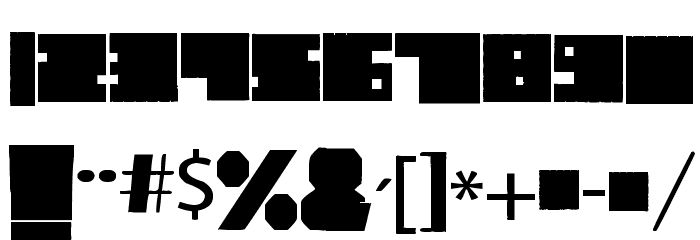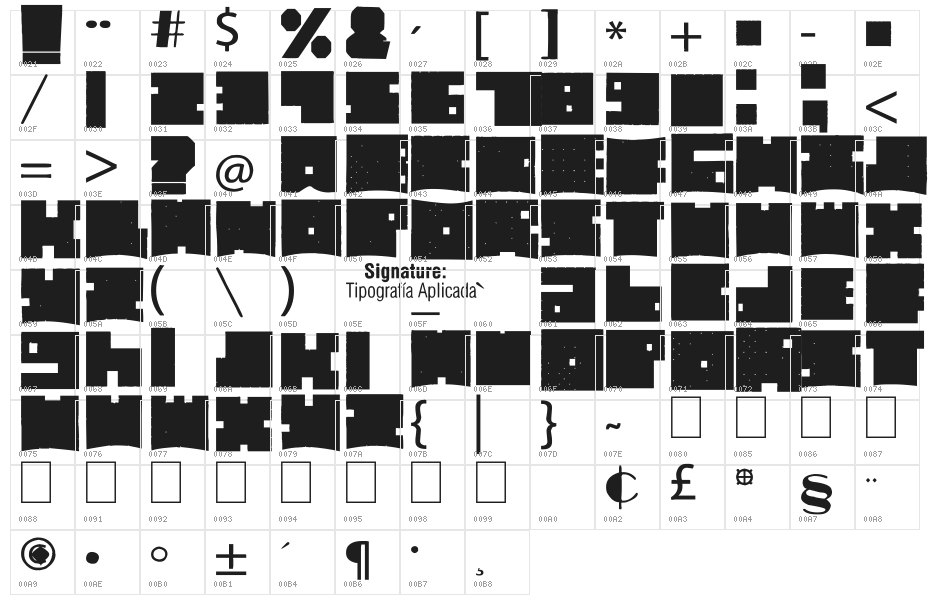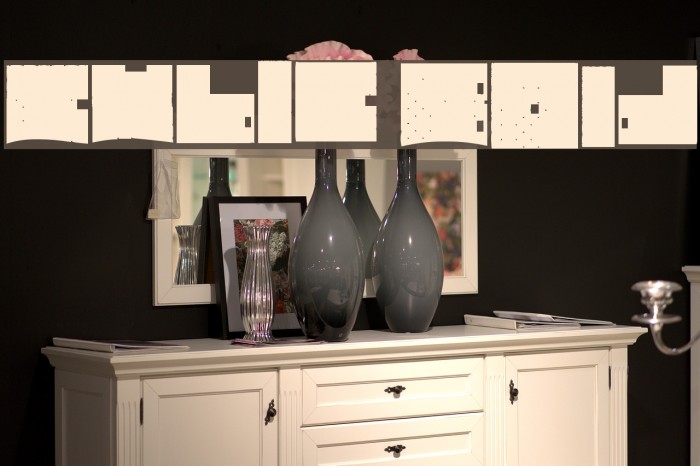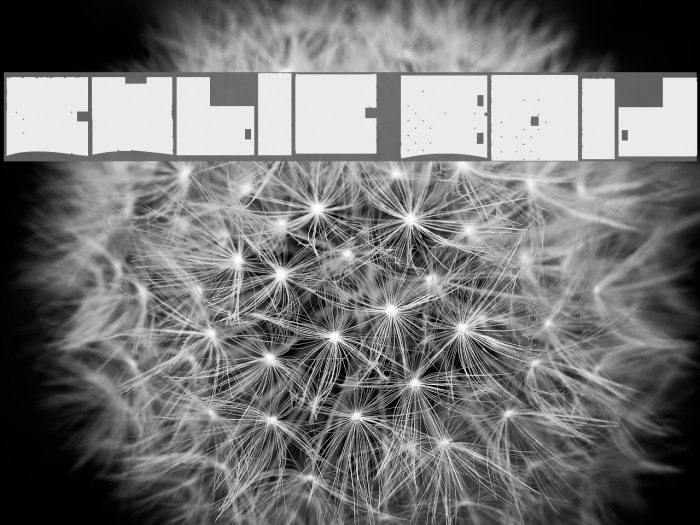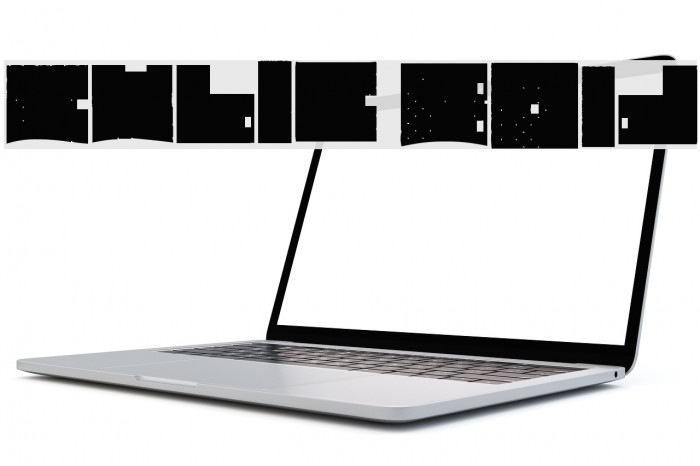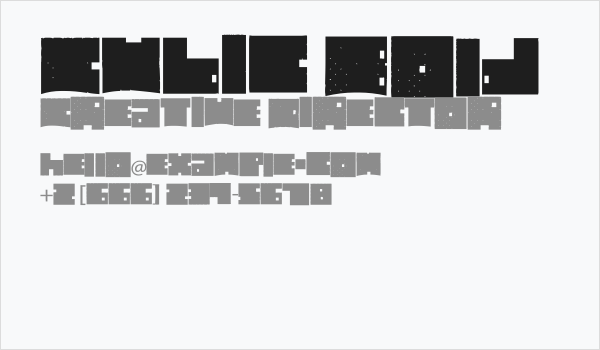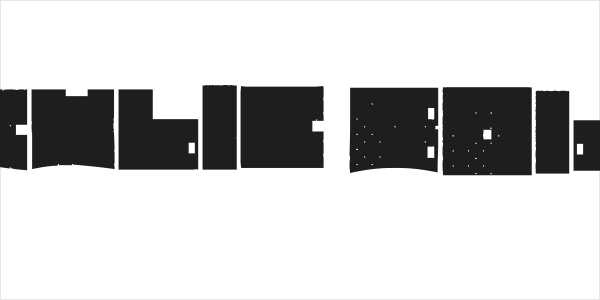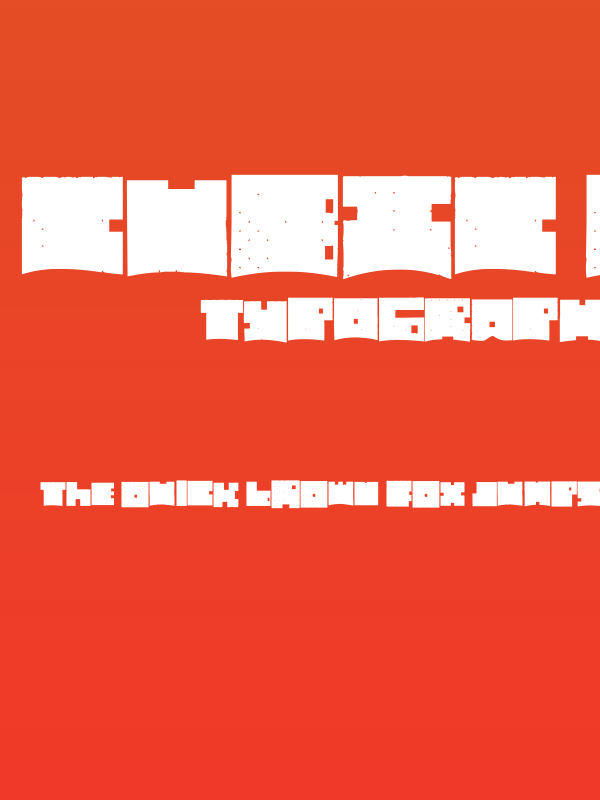
Cubic Bold Font
Cubic Bold Description
This bold, geometric font features a blocky, cubic design with a strong presence. Each character is constructed with uniform thickness, creating a cohesive and robust appearance. The font's structure is reminiscent of pixel art, with sharp edges and a consistent square form. The uppercase and lowercase letters maintain a uniform height, contributing to its monospaced feel. Numbers and special characters follow the same design principles, ensuring a harmonious look across all glyphs. The font's unique style makes it stand out, ideal for projects that require a modern and edgy aesthetic.
| Proposed Projects | Ideal for video game graphics, tech branding, posters, and digital art projects. |